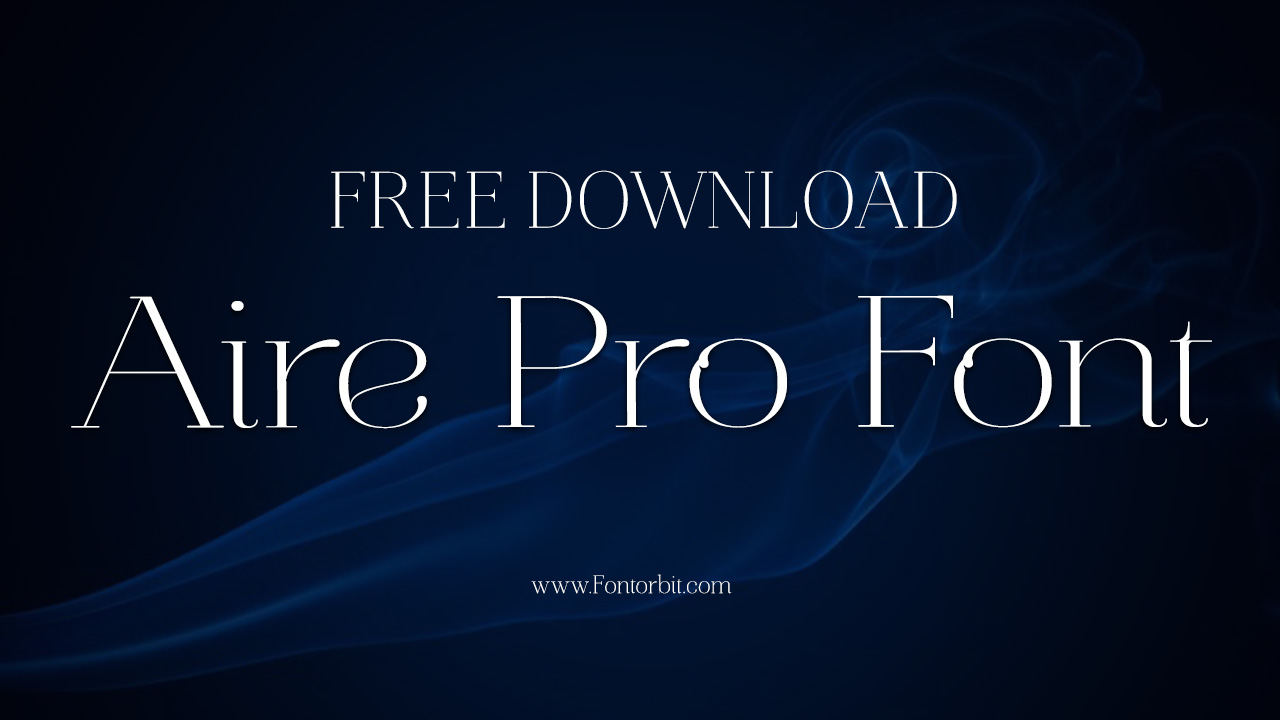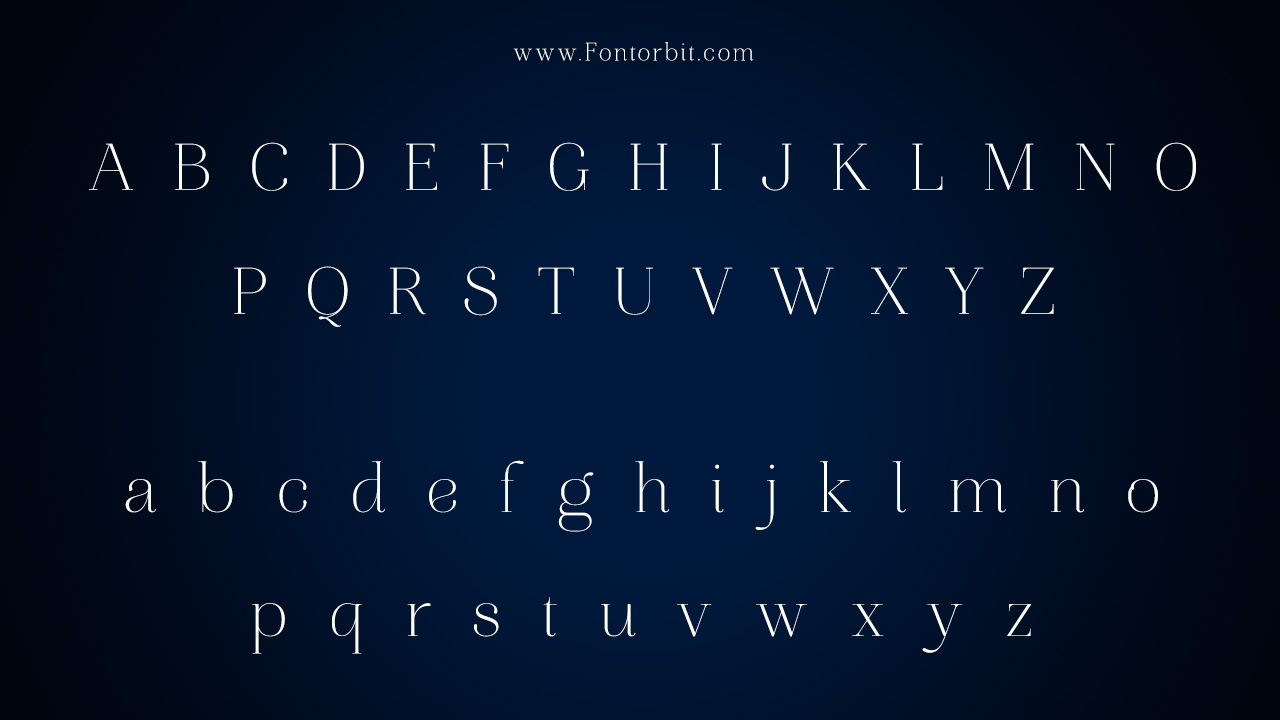
The Aire Pro Font, designed by Maximiliano R. Sproviero and published by Lián Types, embodies a sleek and sophisticated aesthetic perfect for a range of high-impact projects.
This refined serif typeface features a slim, elegant texture with a slightly bold appearance, making it ideal for professional and stylish designs.
The Aire Pro Font Family
- Aire Light Pro
- Aire Light Std
- Aire Roman Pro
- Aire Roman Std
- Aire Bold Pro
- Aire Bold Std
- Aire Light Italic Pro
- Aire Light Italic Std
- Aire Roman Italic Pro
- Aire Roman Italic Std
- Aire Bold Italic Pro
- Aire Bold Italic Std
- Aire Fleurons Pro
The Aire Pro Font is ideal for designs that require a sophisticated and professional touch. Its elegant serif styling and versatile features make it perfect for high-end publications, formal documents, and creative endeavors, bringing a touch of class and refinement to your projects.
1.What Is The Aire Pro Font?
The Aire Pro Font is a sleek and sophisticated serif typeface designed to provide an elegant and refined look, ideal for high-impact and professional designs.
2.Who Designed The Aire Pro Font?
Maximiliano R. Sproviero, in collaboration with Lián Types, designed the Aire Pro Font to reflect a sophisticated and modern aesthetic.
3.What Are The Key Features Of The Aire Pro Font?
The font features slim, elegant textures with a slightly bold appearance and includes multiple styles, making it perfect for professional and stylish applications.
4.How To Use Aire Pro Font In Branding?
Use it for fashion magazines, official documents, presentations, and invitations to achieve a refined and elegant look that enhances the professionalism and sophistication of your branding.
5.What Are The Alternatives To The Aire Pro Font?
Similar fonts include Vollkorn Serif, Garamond, Baskerville, and Didot, which offer sophisticated serif styling similar to the Aire Pro typeface.